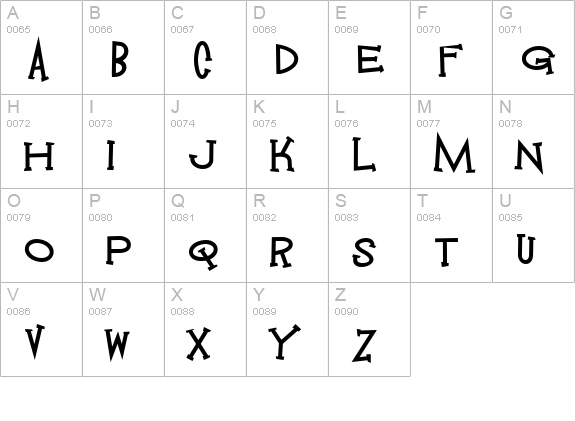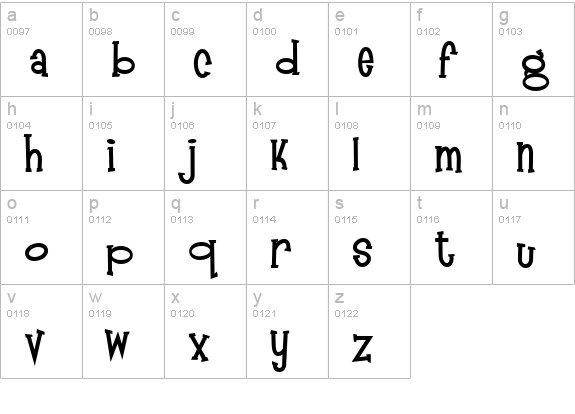
Introducing Mandingo font, a captivating typeface that beautifully combines elegance with a touch of modernity. This versatile font is meticulously crafted to bring a sense of sophistication to any design project. With its sleek and distinctive letterforms, Mandingo adds a touch of class to logos, headlines, invitations, and more. But what sets Mandingo font apart is not just its striking aesthetics, but also its accessibility. This font is made available to everyone for free, ensuring that designers and creatives of all backgrounds can enjoy its charm without any limitations. To get your hands on this remarkable font, simply visit FontsMarket.com, where you can freely download Mandingo font and explore its endless possibilities. Whether you're a professional designer looking to enhance your portfolio or a budding artist seeking to add a unique flair to your creations, Mandingo font is the perfect choice. Embrace the beauty of Mandingo font today and let your designs speak volumes with its elegance and grace. Download now and unlock a world of creative opportunities, all at your fingertips.